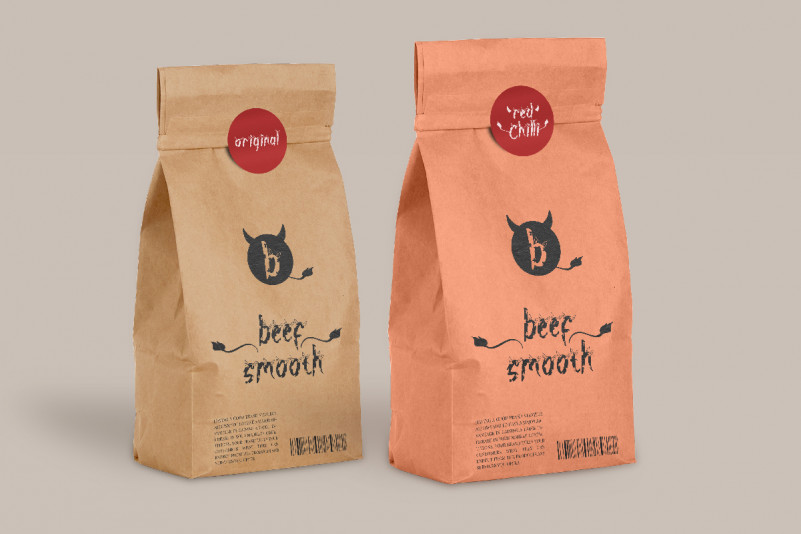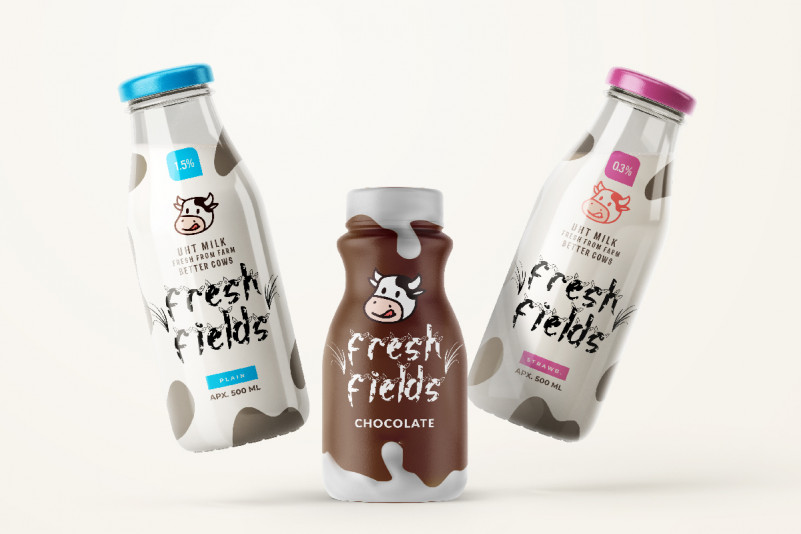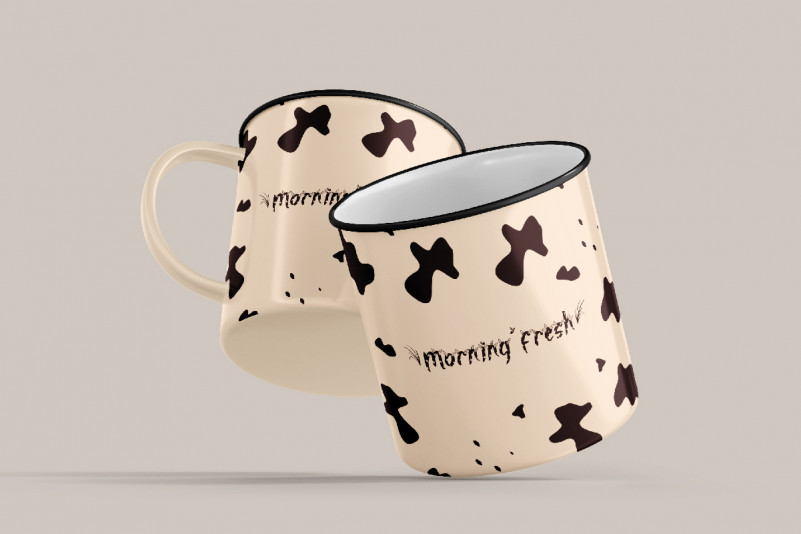
Cow Farm Font
Cow Farm Display Font
This font is remotely made by RaisProject team in Indonesia. The font was handcrafted for any your special projects including : brands, promotion, events, games, advertising, magazine, signage, invitation, stationery, social media posts, label, or and any projects that need unique strong style. The industries for this font is Movie, games, Apps, events, Games, Magazine, etc
Cow Farm Font includes full set of awesome uppercase and lowercase letters and numerals characters. In total, Cow Farm has two different styles : Regular and Italic. You can mix it more than one style like we did on the previews